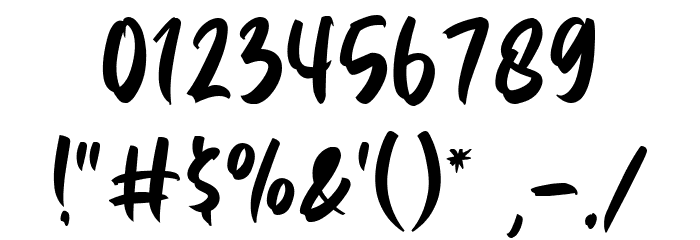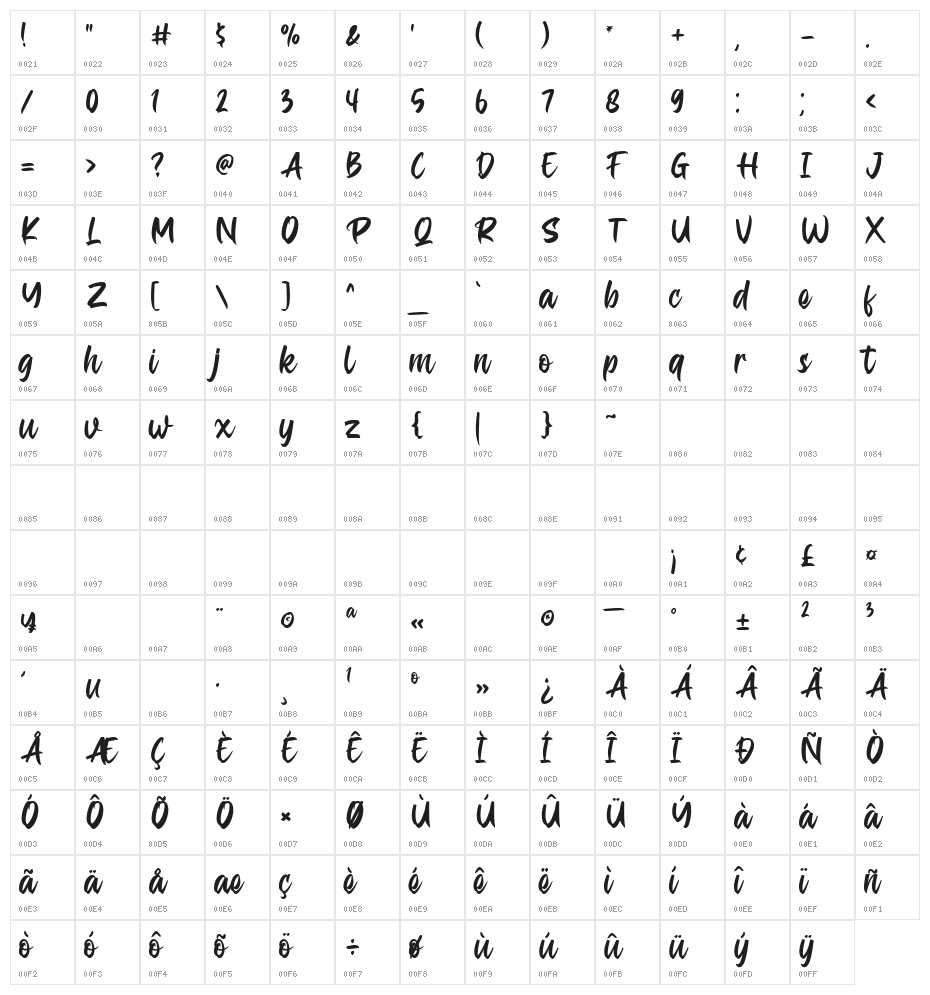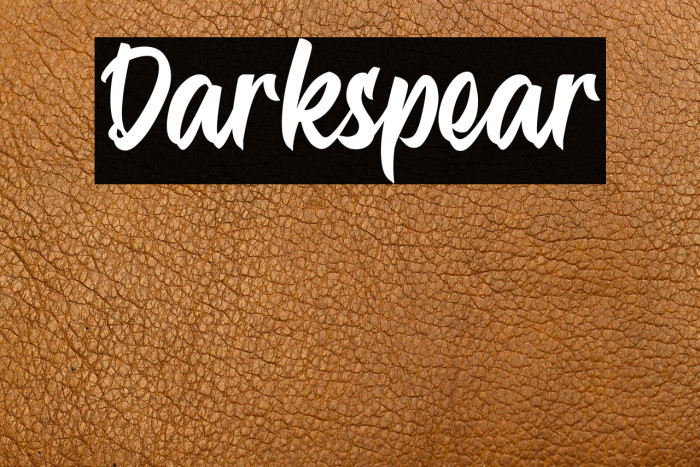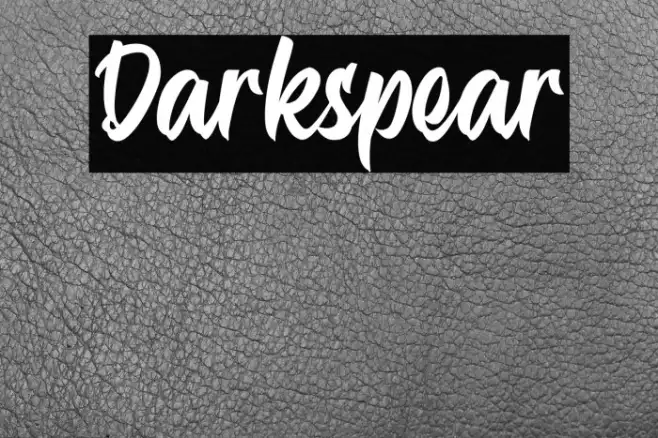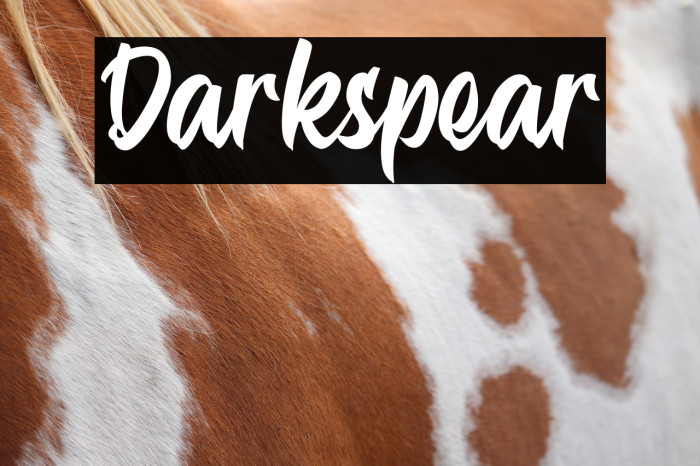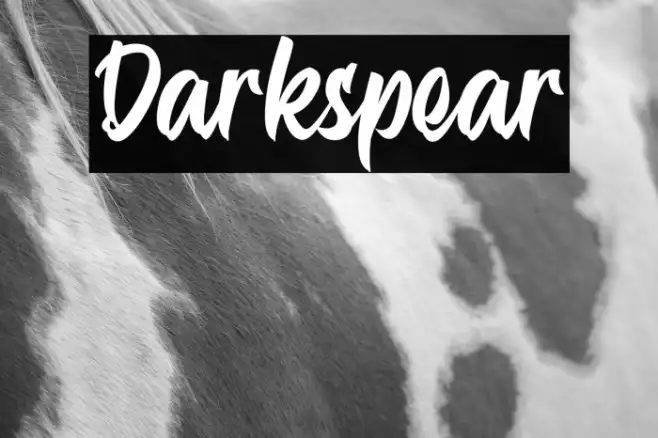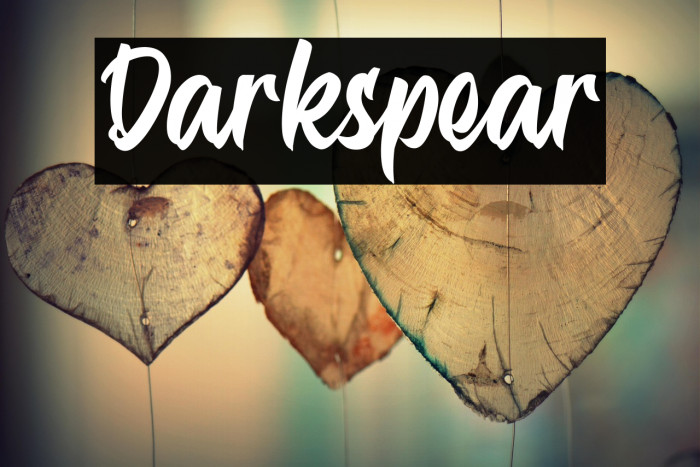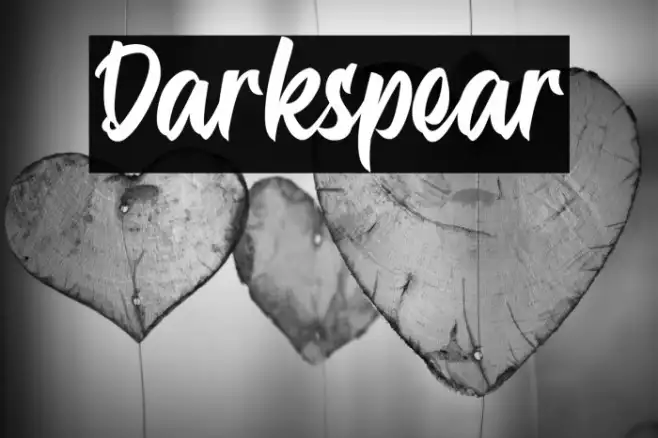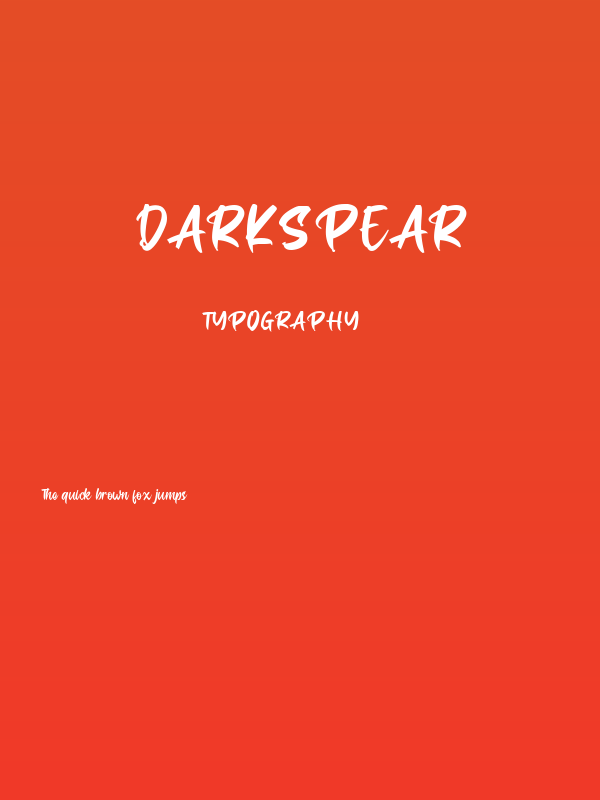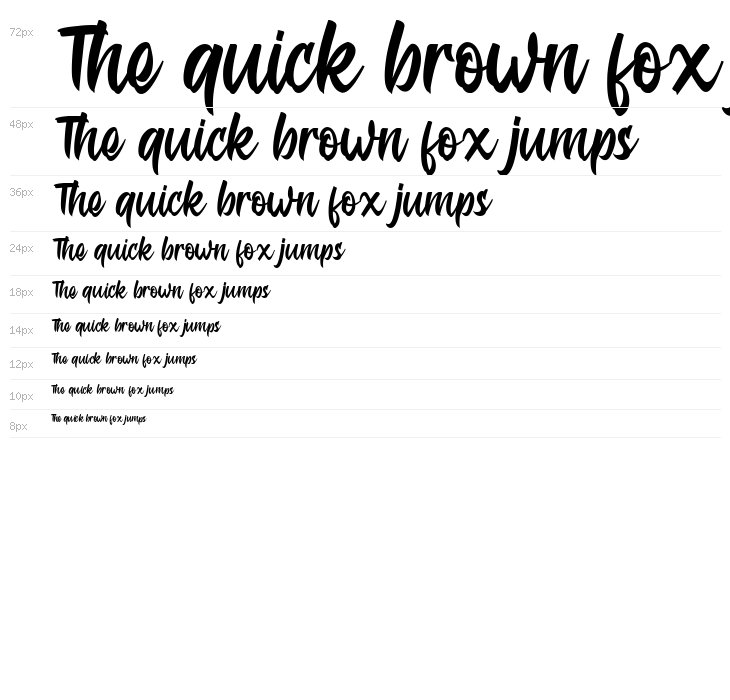
Darkspear Font
Darkspear Description
This font features a bold and expressive handwritten style, characterized by its fluid and dynamic strokes. The letters are slightly slanted, giving a casual yet energetic appearance. The uppercase and lowercase letters maintain a consistent flow, with rounded edges and varying stroke widths that add to its lively personality. Numbers and special characters follow the same aesthetic, ensuring a cohesive look across all elements. The overall design is both playful and impactful, making it suitable for creative and informal applications.
| Proposed Projects | Ideal for branding projects, social media graphics, posters, and invitations where a personal and energetic touch is desired. |